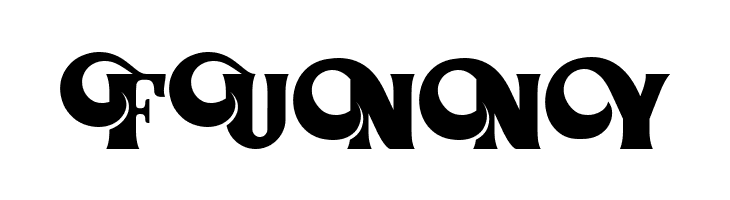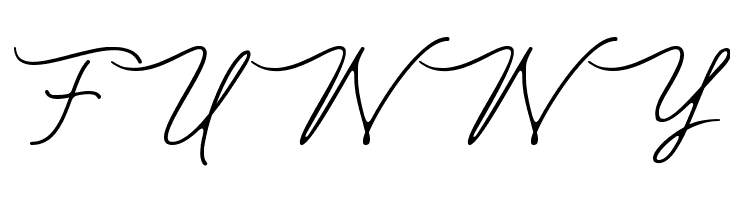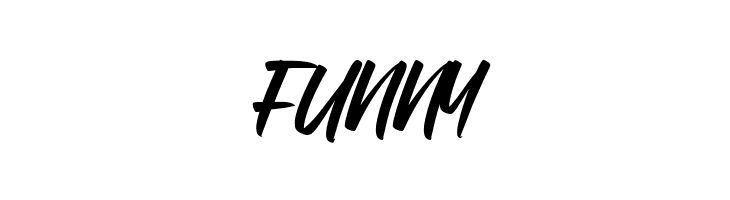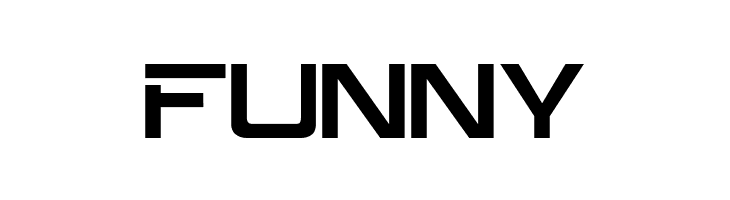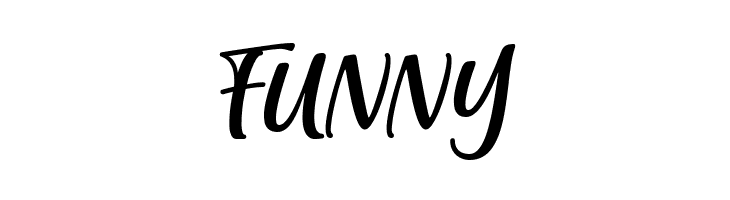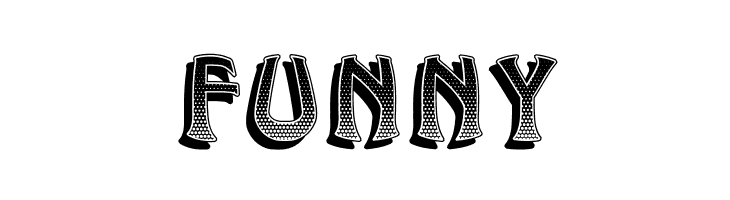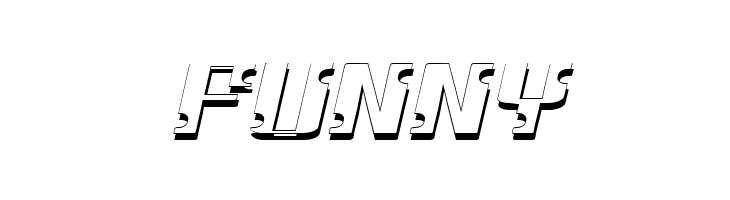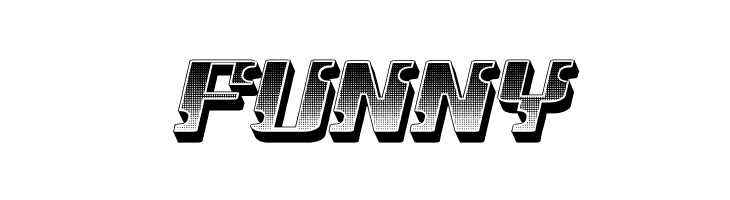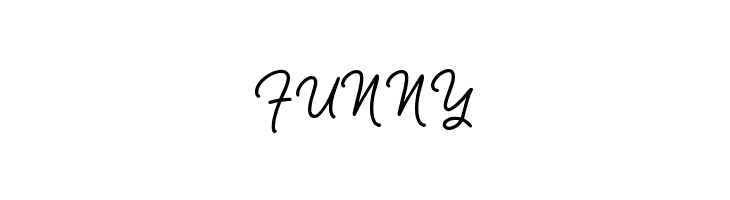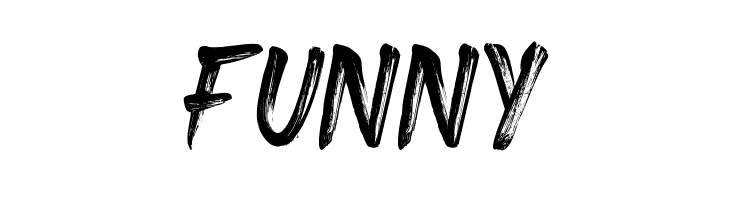
A bold, decorative font with a dotted texture and vintage flair.
A bold, dynamic serif font with a modern yet classic appeal.
A bold and dynamic font with thick strokes and sharp edges, perfect for impactful designs.
A dynamic and elegant script font with fluid, cursive letterforms.
A bold, high-contrast font with sharp serifs and a dynamic style.
A dynamic, expressive handwritten font with fluid strokes and a brush-like texture.
A bold, brush-style handwritten font with dynamic strokes.
A playful, handwritten script font with a dynamic and friendly style.
A modern script font with decorative loops and elegant swirls.
A playful, rounded script font with smooth curves and flowing lines.
A playful, rounded script font with smooth, connected letters and a friendly appearance.
A bold, decorative font with intricate swirls and vintage flair.
A bold, playful script font with smooth, flowing characters.
A bold, flowing script font with interconnected characters and a playful style.
A bold, brush-style script font with a dynamic and expressive design.
A dynamic, cursive script font with a natural handwriting style.
A playful, casual handwritten font with smooth, flowing lines.
An elegant, cursive font with flowing lines and sophisticated style.
A bold, angular serif font with a striking and aggressive design.
A dynamic and flowing script font with elegant, expressive letterforms.
A modern, flowing script font with dynamic strokes and elegant style.
A futuristic, industrial-inspired font with bold outlines and mechanical detailing.
A bold, retro 3D font with a dotted texture and shadow effect.
A bold, calligraphic script font with ornate flourishes and dynamic curves.
A bold, modern font with a strong vertical emphasis and unique character designs.
A bold, modern font with narrow, curved letterforms and a distinctive style.
A playful handwritten font with fluid, connected strokes and a whimsical flair.
An elegant, flowing script font with interconnected, graceful strokes.
A modern, geometric font with bold, angular characters and consistent stroke width.
A bold, brush-stroke style font with a dynamic, hand-painted look.
A dynamic, expressive handwritten font with fluid strokes and artistic flair.
A bold, brush-style font with sharp, angular strokes and a dynamic, hand-drawn aesthetic.
A decorative font featuring characters integrated with silhouette scenes.
A bold, handwritten font with a dynamic and energetic style.
A flowing, cursive script font with a personal and elegant touch.